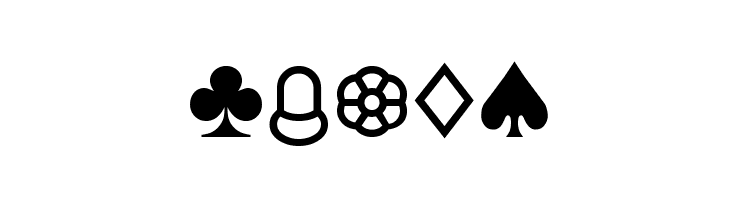
A bold, graffiti-inspired font with an urban, edgy style.
A playful collection of crown-themed decorative symbols.
A 1970s-themed decorative dingbat font with iconic retro illustrations.
A playful collection of hand-drawn doodle symbols with a whimsical style.
Cartoon emoticon dingbat font with diverse facial expressions.
A decorative dingbat font of geometric flag and template icons.
A decorative symbol font with playful, bold icons and shapes.